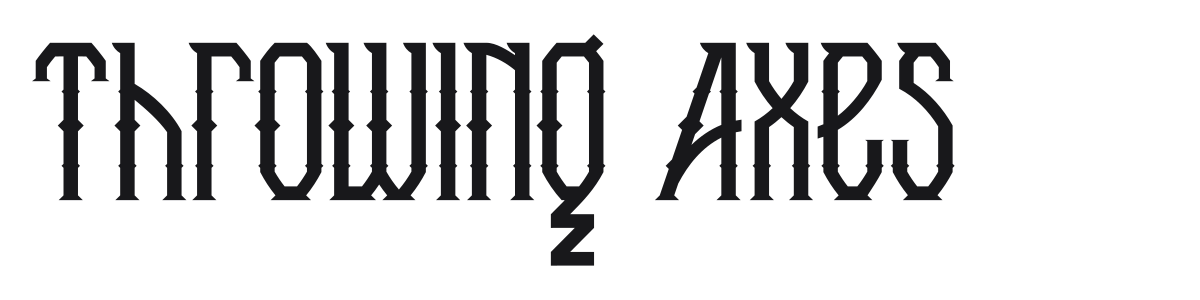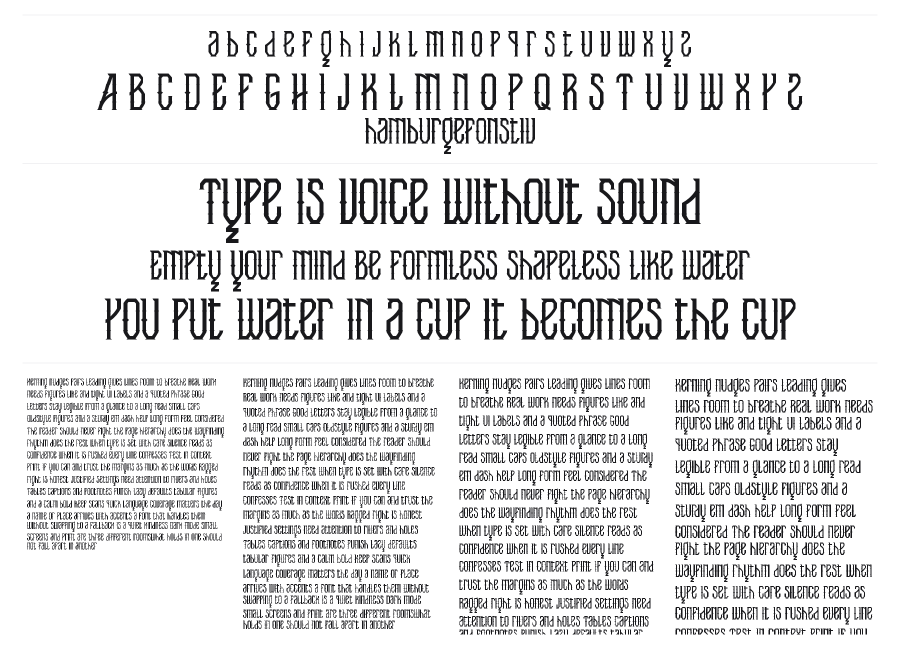
Throwing Axes
by en86-21
Throwing Axes is a heavy condensed blackletter built from angular, notched strokes that look more forged than written. The modular construction evokes carved timber or weapon joinery rather than a calligrapher's pen, giving it a raw mechanical edge within a medieval framework. It works at large sizes for logos, album art, game titles, and anything that needs a dark, imposing presence.